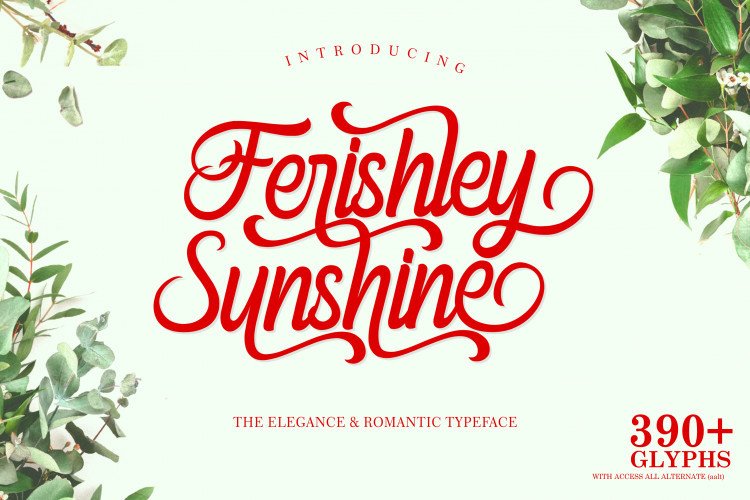
Ferishley Sunshine Script Font
Introducing an elegant monoline font. It’s equipped with lines that are perfect for use for various purposes. It is called Ferishley Sunshine Font. It’s an elegance and romantic feel with beautiful wave is really perfect for you who needs a typeface for especialy logotype, typography, headline, advertising, branding, packaging design, etc. This typeface comes in uppercase, lowercase, punctutations, symbols & numerals, access all alternate (aalt), ligatures, etc